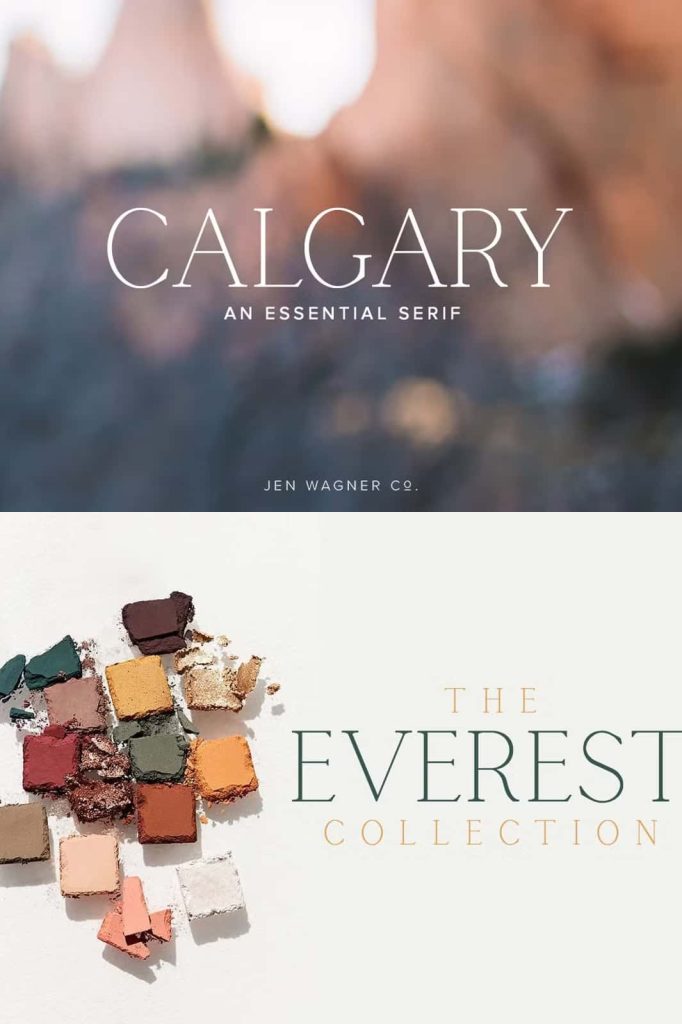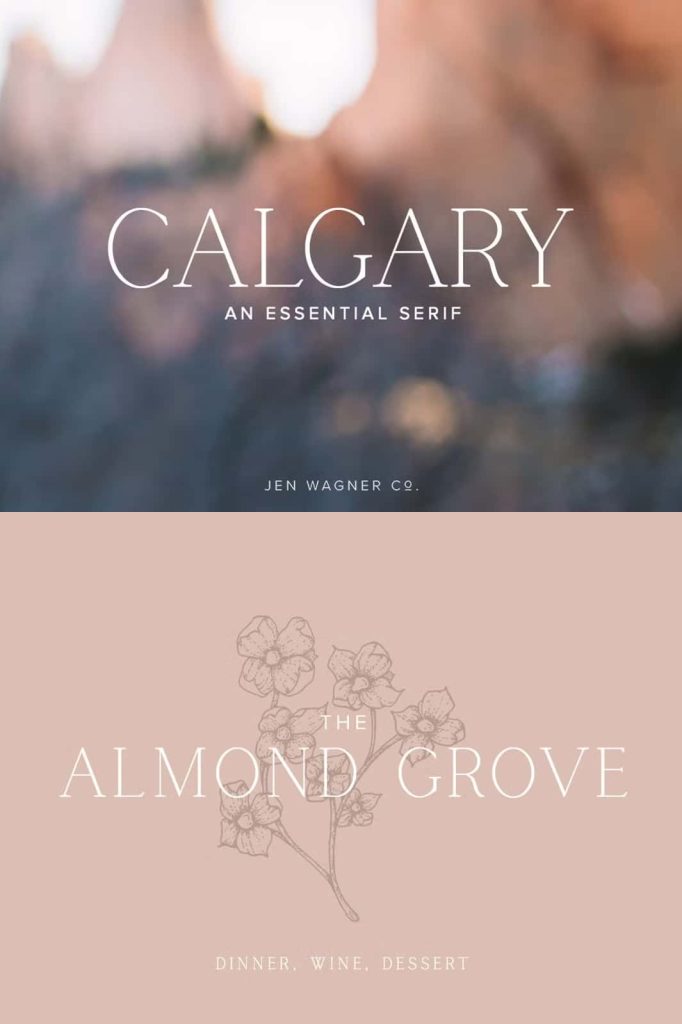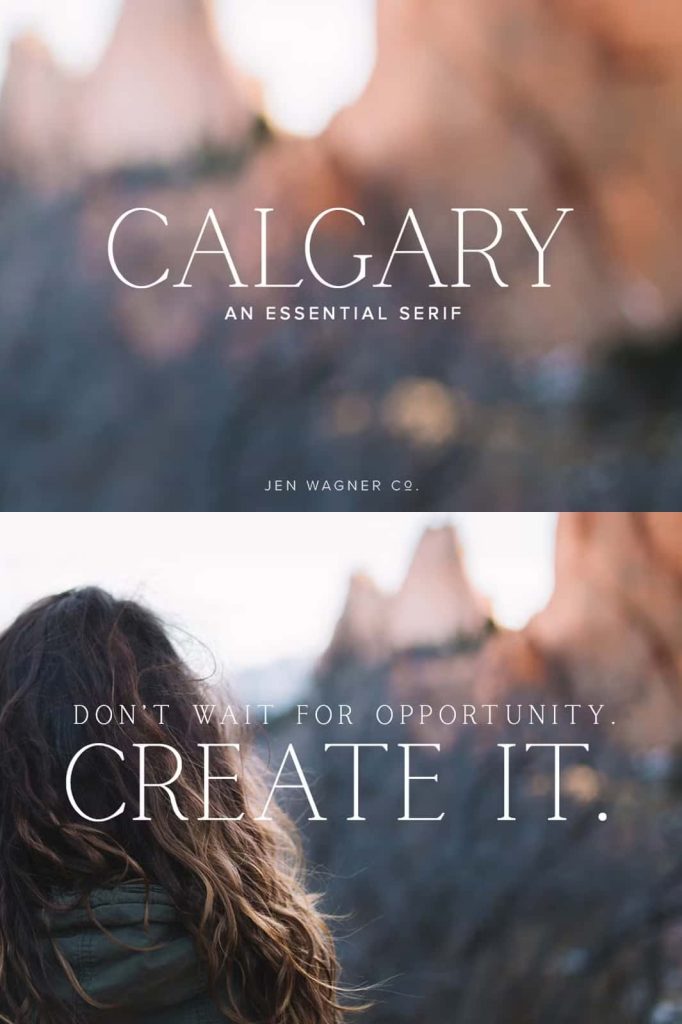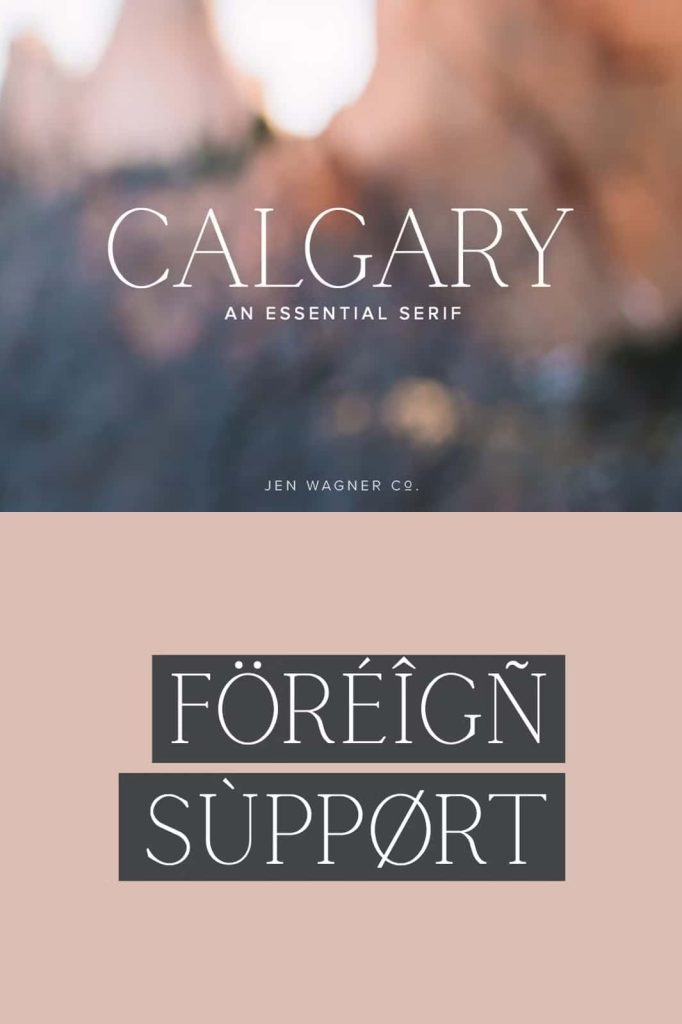
UPDATE: Calgary | An Essential SerifleastedMarch 17, 2025Fonts This delicate yet classy all-caps serif typeface features clean serifs and a narrow profile Download